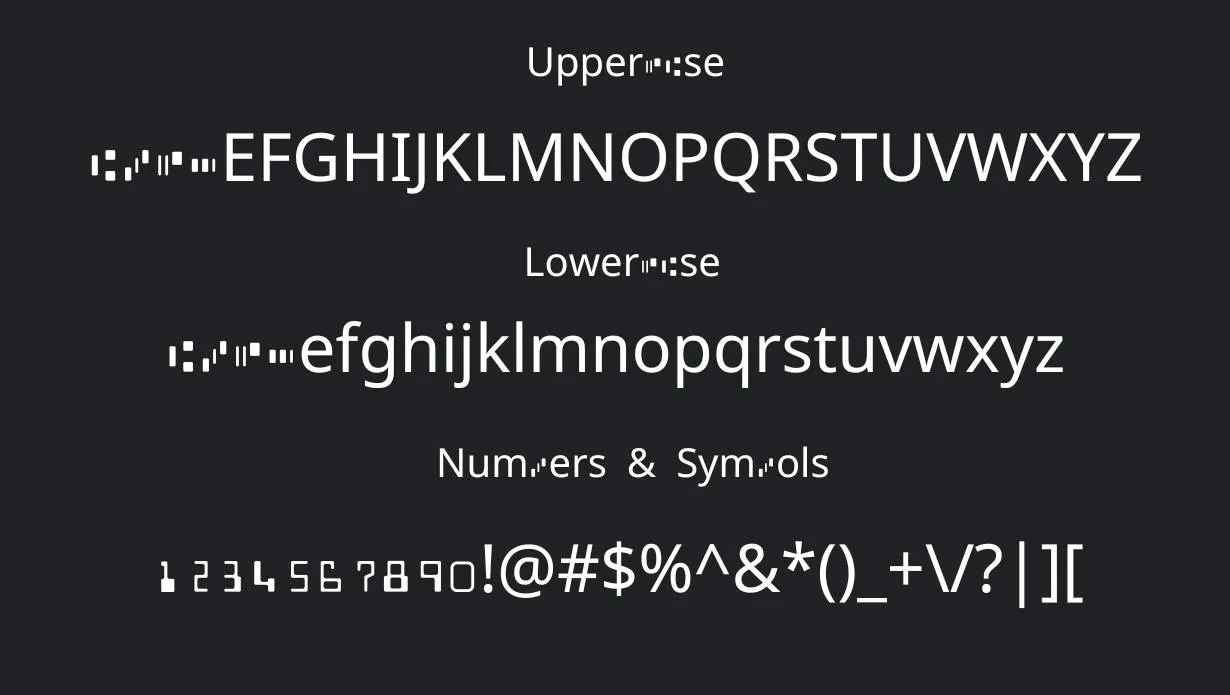
Micr encoding font is like a secret language that helps banks understand checks. It’s a special way of writing numbers and letters on checks so that machines in the bank can easily read and process them.
This font ensures that when you write a check, the information is clear and accurate, making sure your money moves smoothly from one place to another. Think of it as a helpful tool that speaks to the machines at the bank, making sure they understand the important details of your checks.
| Name | Micr Encoding Font |
| Designer | Digital Graphic Labs |
| Style | Techno |